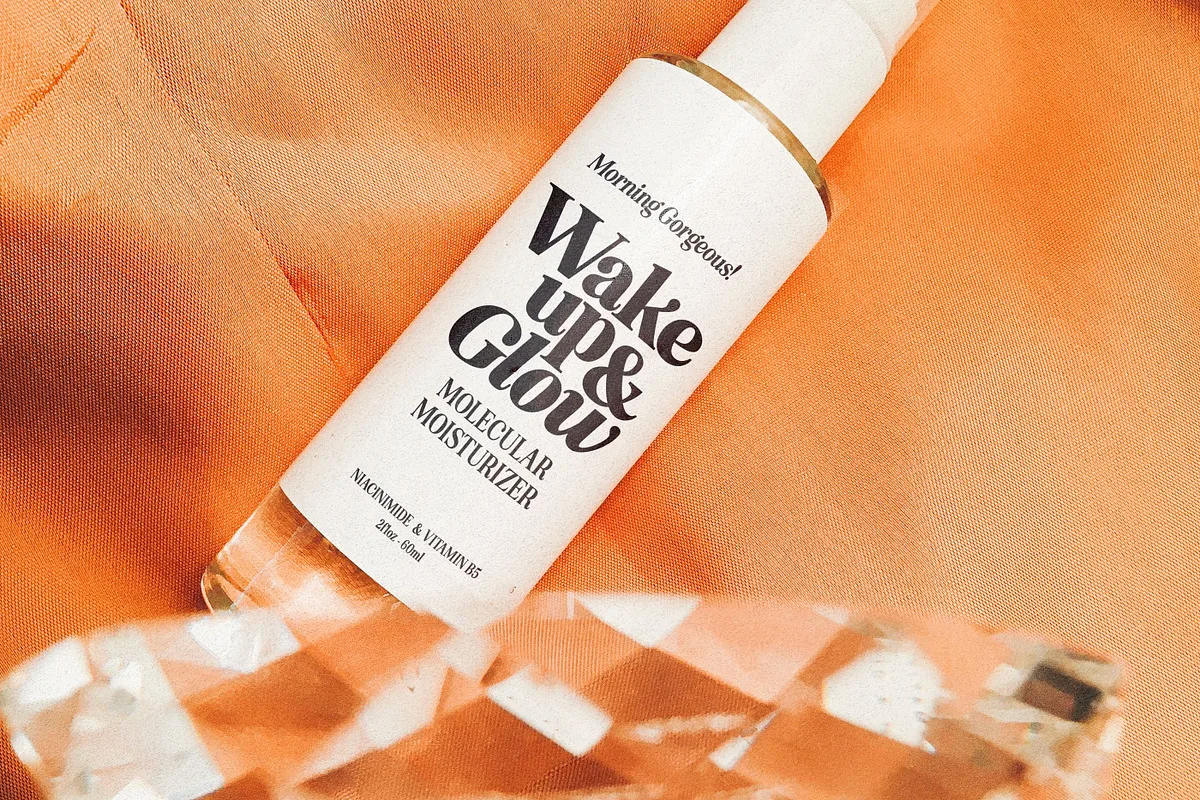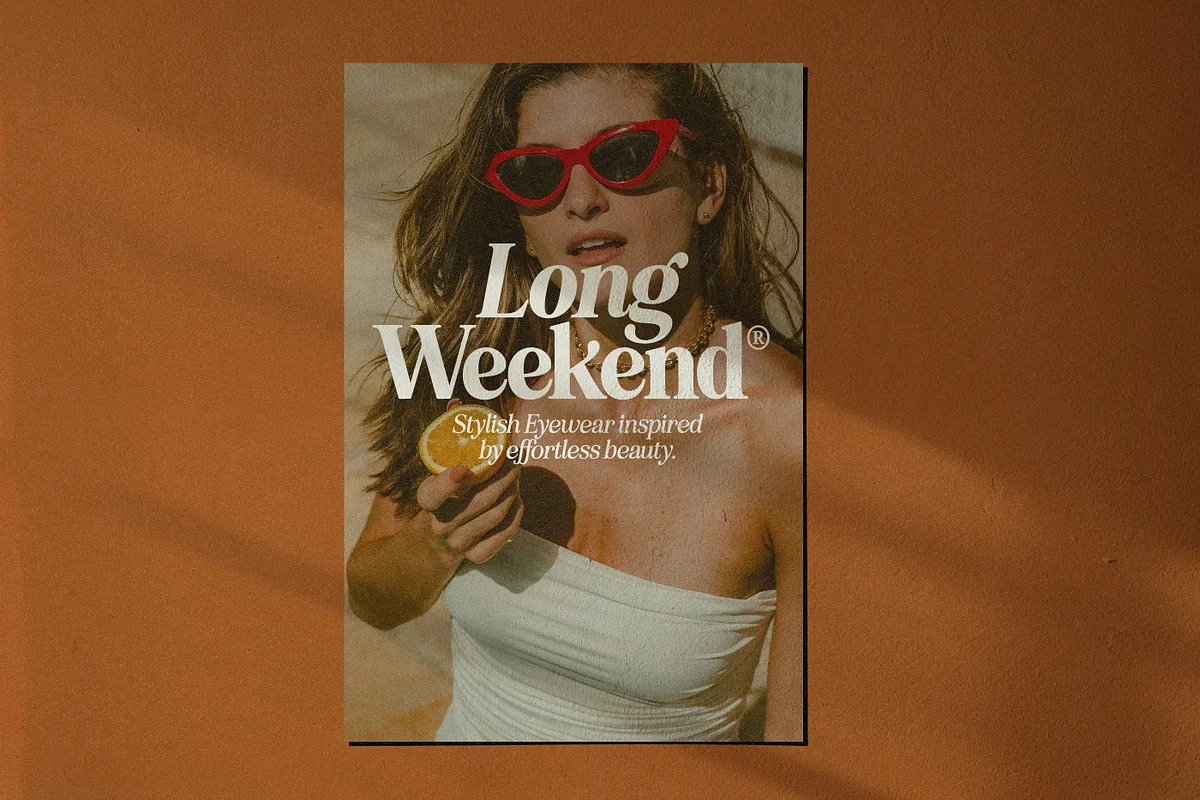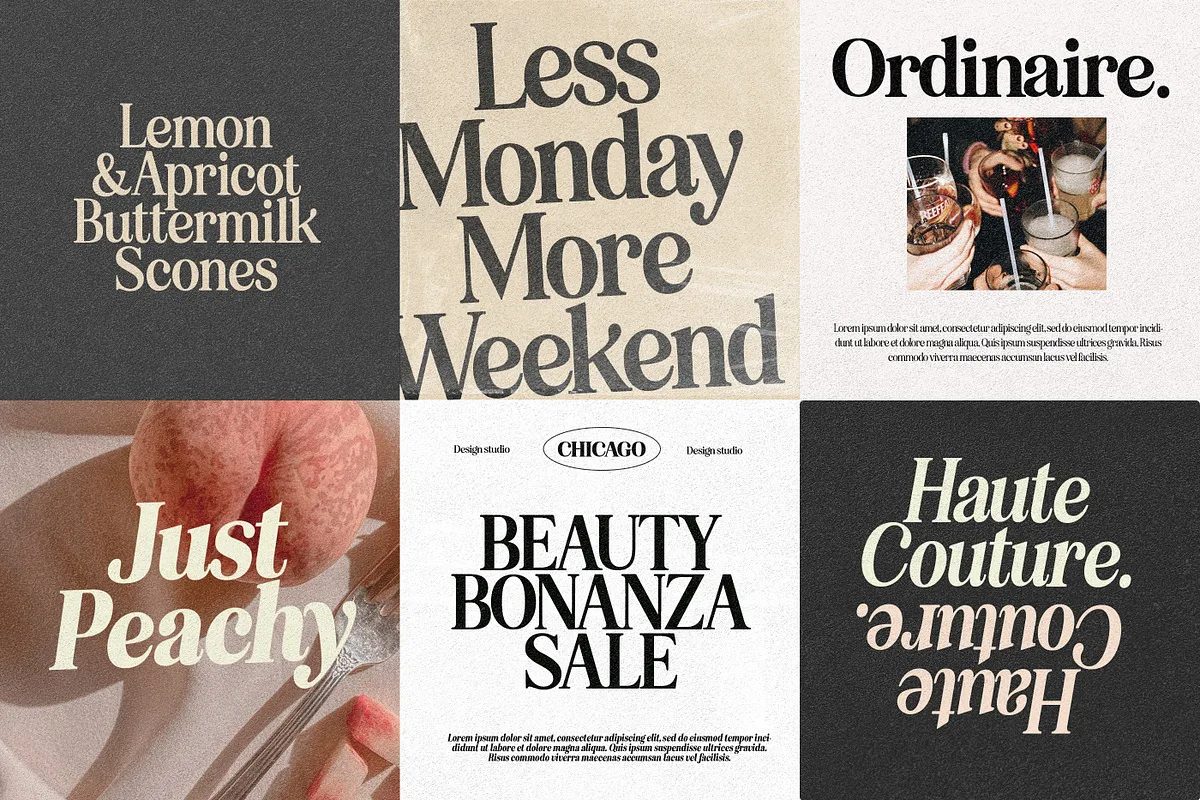
Eighties Comeback is a flirtatiously charming 80’s retro-inspired serif typeface with wonderful versatility, given it includes 70 fonts. It is perfect for quotes, logos, designs, digital art and more.
Inspired by magazine adverts from the 70’sand 80’s – this family fits right in with bringing retro back into the 21st century. Super-versatile – have a scroll through all the previews to see the very wide range of variety that Eighties Comeback can manifest. The possibilities are really quite endless.
- 70 fonts for Eighties Comeback is regular and Italic, varying from light to black in weight, and ultra condensed to Regular in width.